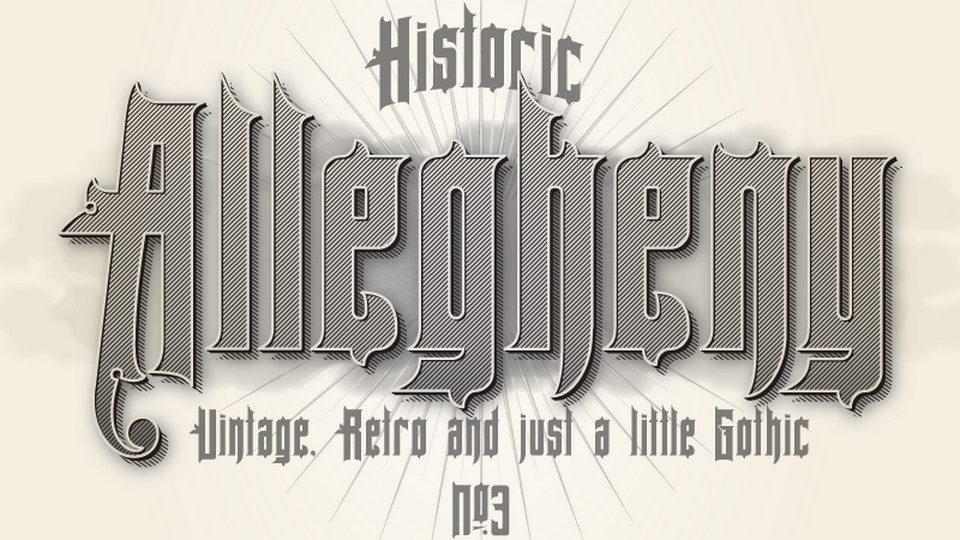
Allegheny is a vintage, retro and just little gothic font, inspired by Sanborn map, based on the glyphs from a 1906 insurance map for Allegheny, Pennsylvania. The font has uppercase and lowercase letters, numbers, symbols and language support.
Allegheny font is great for logos, branding, headlines, posters, apparel and more.